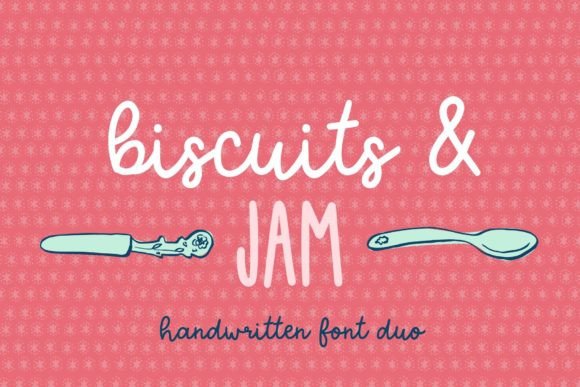
Biscuits & Jam: A Font Duo to Ignite Your Creative Flare
In a world saturated with digital monotony, Biscuits & Jam emerges as a breath of fresh air, a font duo that dances across your screen, exuding a playful charm that invigorates your designs. This remarkable creation by kelliejaynestudio is a symphony of contrasting styles, where a sweet script harmonizes with a fun sans-serif font, resulting in a unique and stylish aura that complements any design vision.
Unleash the boundless versatility of Biscuits & Jam, a font duo that effortlessly adapts to a kaleidoscope of industries, from the heartfelt musings of authors to the delectable aromas of bakeries and cafés. Its whimsical nature captivates the innocence of childhood, while its sophisticated elegance enhances the allure of cosmetics, fashion, and homeware. Movie posters and publishing houses come alive with its undeniable charisma, while printing presses and restaurants find their perfect partner in this font duo's timeless appeal. Schools and wedding invitations exude a touch of whimsy, making Biscuits & Jam the perfect choice for those seeking a touch of playful charm.
Step into a realm of limitless creativity with Biscuits & Jam, a font duo that transforms your design dreams into tangible realities. Its versatility knows no bounds, whether you seek to craft eye-catching logos, captivating social media posts, or stunning website designs. Unleash your imagination and watch as Biscuits & Jam elevates your projects to new heights of visual splendor.
Don't settle for ordinary fonts that blend into the background. Embrace the captivating allure of Biscuits & Jam, a font duo that ignites your creative spark and sets your designs ablaze with personality. Experience the magic of this extraordinary font combination and elevate your projects to the realm of the extraordinary.